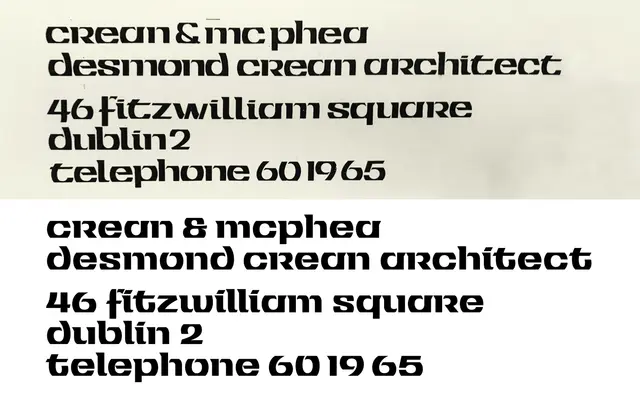
Jarlath
A digital revival of Jarlath Hayes's 1974 Tuam Uncial, reworking a dry-transfer typeface rooted in hacked Helvetica Bold into a 150-language family with serif and sans variants.
Max Phillips designed this revival under the supervision of Hayes's daughter, taking the original Tuam Uncial's extreme squarish forms, derived from sliced Helvetica Bold to evoke Insular manuscript scripts, and moderating them for better readability through reduced contrast and more generous letterspacing. The family extends to four styles: regular and italic with the original's semiserifs, and a sans pair drawing on early drafts that predated those details. Ligatures, directional arrows and expanded punctuation accompany support for over 150 languages.
A digital revival of an uncial-style typeface rooted in Insular manuscript traditions, combining semi-serif and sans variants derived from a hacked Helvetica Bold source. The uncial letterforms place it firmly in the display category with a specialised historical subcategory.